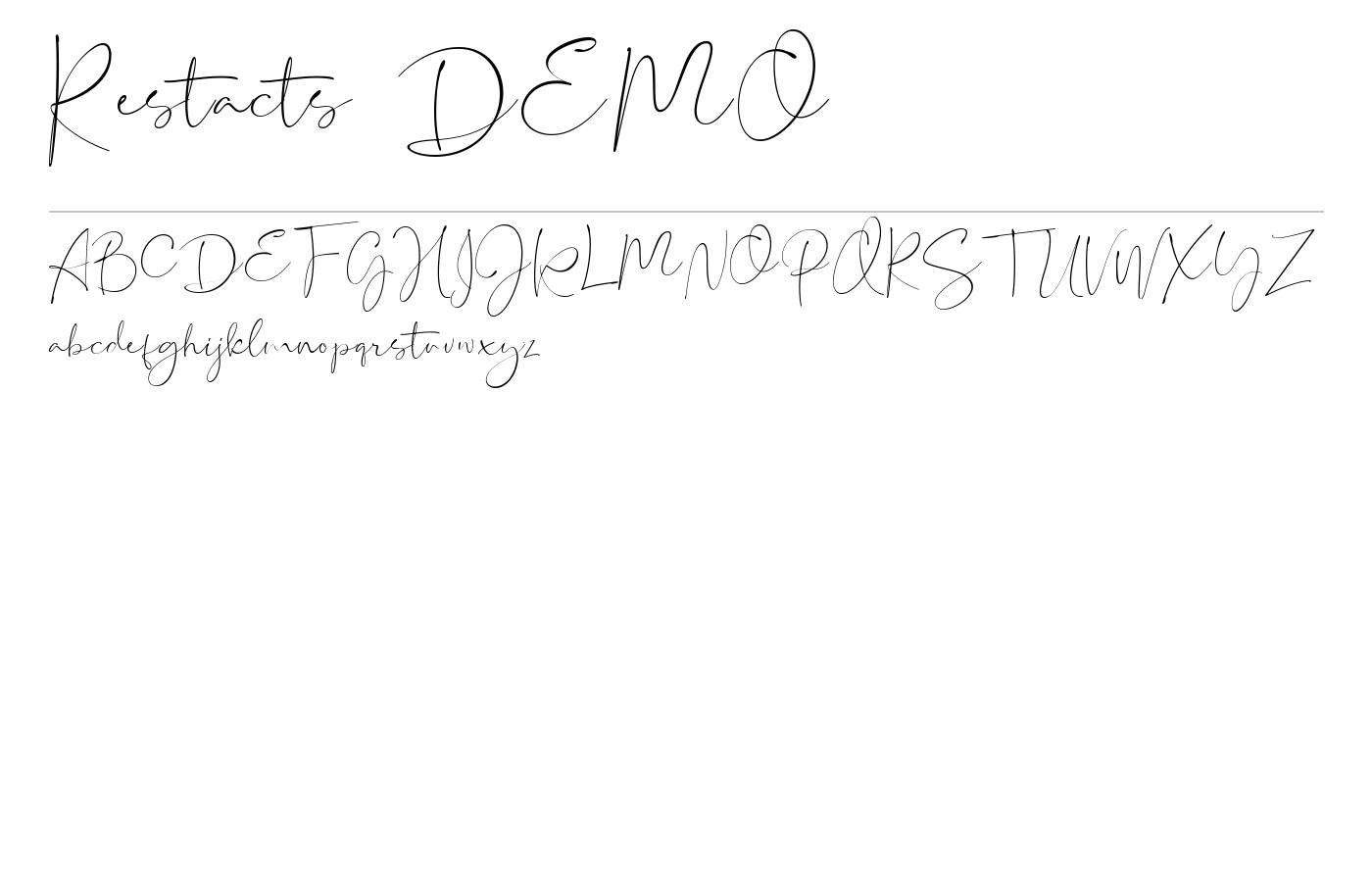
Restacts Script is a delicate and elegant handwritten font characterized by its fine, flowing strokes and a natural, airy feel. Its slender, slightly irregular letterforms convey a modern, personal touch that works beautifully for feminine branding, invitations, and stylish editorial projects. This font’s graceful yet casual style makes it ideal for designs that seek to blend sophistication with warmth and approachability.
Restacts Script Font
About Restacts Script Font
| Font family | Restacts Script Font |
| Designer | RedyStudio |